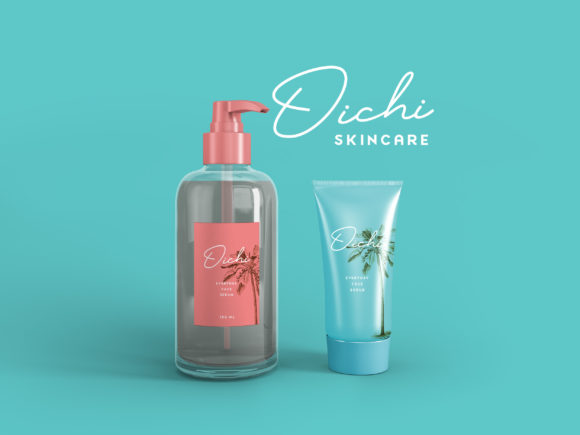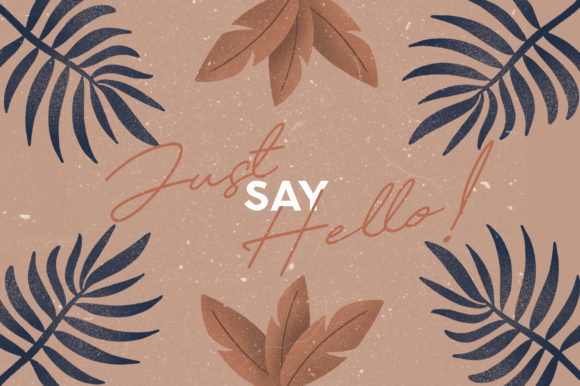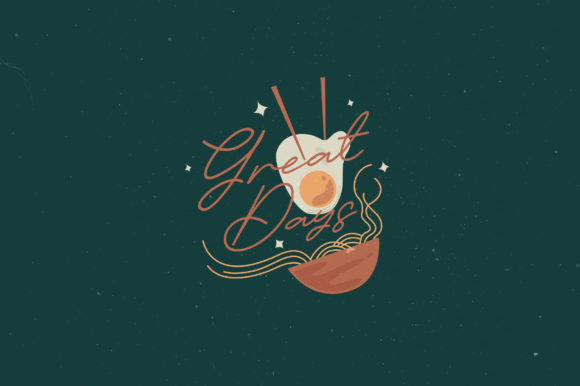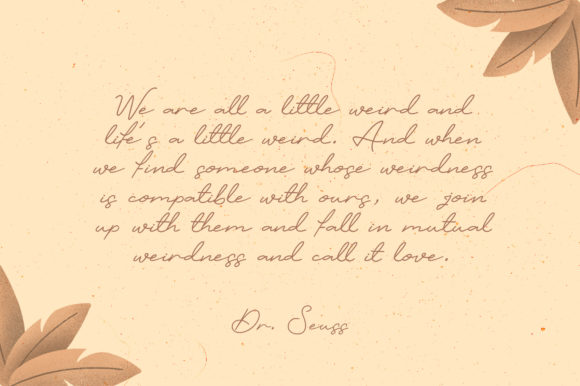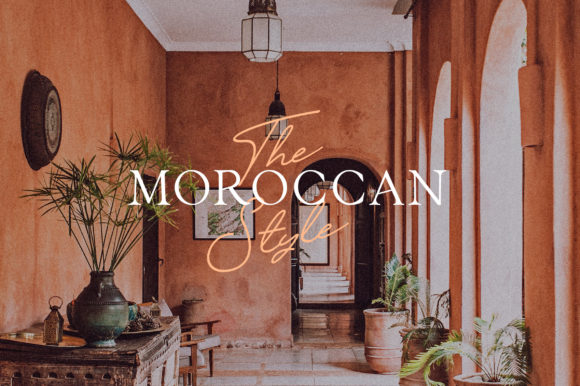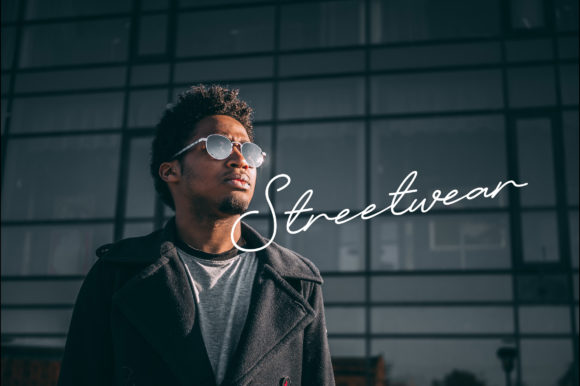
Introducing Elfani Font: The Elegant Script Font for Creative Designs
Are you a designer or crafter looking for a beautiful script font to elevate your creative projects? Look no further than Elfani Font! This stunning script font is designed to add an elegant touch to your designs, making it perfect for creating cute stationery, unique wedding designs, and so much more.
What is Elfani Font?
Elfani Font is a beautiful script font that boasts an elegant and refined look. Its unique and flowing design makes it stand out from other script fonts, and its versatility ensures that it can be used for a wide range of creative projects. Whether you’re designing wedding invitations, creating custom stationery, or crafting digital content, Elfani Font is the perfect choice.
Key Features of Elfani Font
So, what makes Elfani Font so special? Here are just a few of its key features:
- Elegant Design: Elfani Font features a beautiful, flowing script design that’s perfect for creating elegant and sophisticated designs.
- Versatile: This font is highly versatile and can be used for a wide range of creative projects, from wedding designs to digital content.
- Easy to Read: Despite its elegant design, Elfani Font is easy to read, making it perfect for body text and other applications where readability is key.
- Customizable: With Elfani Font, you can create custom designs that reflect your unique style and brand.
Uses for Elfani Font
So, what can you use Elfani Font for? The possibilities are endless! Here are just a few ideas to get you started:
- Wedding Designs: Create beautiful wedding invitations, programs, and other stationery with Elfani Font.
- Stationery: Design custom stationery, including notebooks, journals, and greeting cards.
- Digital Content: Use Elfani Font to create engaging digital content, such as blog posts, social media graphics, and email newsletters.
- Crafting: Add a touch of elegance to your crafting projects, such as scrapbooking, card making, and paper crafting.
Tips for Using Elfani Font
To get the most out of Elfani Font, here are a few tips to keep in mind:
- Pair with Other Fonts: Experiment with pairing Elfani Font with other fonts to create unique and interesting combinations.
- Use for Headings and Titles: Use Elfani Font for headings and titles to add a touch of elegance to your designs.
- Experiment with Colors: Try out different colors and color combinations to find the perfect look for your design.
In conclusion, Elfani Font is a beautiful script font that’s perfect for designers and crafters looking to add an elegant touch to their creative projects. With its versatile design, easy readability, and customizable features, Elfani Font is the perfect choice for a wide range of applications. So why wait? Download Elfani Font today and start creating stunning designs that will leave a lasting impression!
- Is Elfani Font suitable for body text?
- While Elfani Font is primarily designed for headings and titles, it can be used for body text in certain applications. However, it’s recommended to use a clear and readable font for body text.